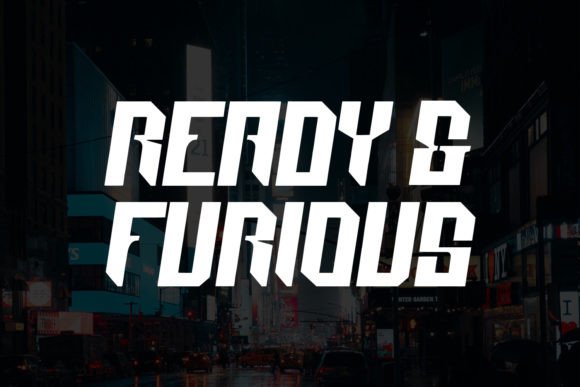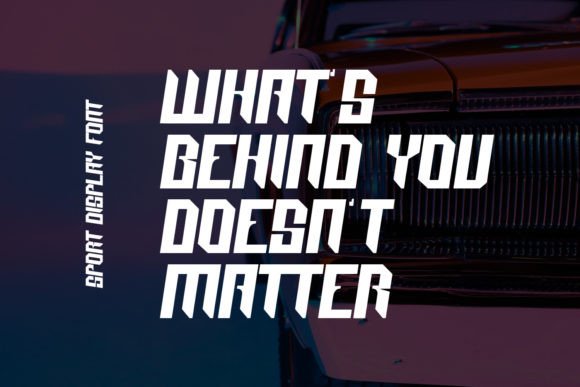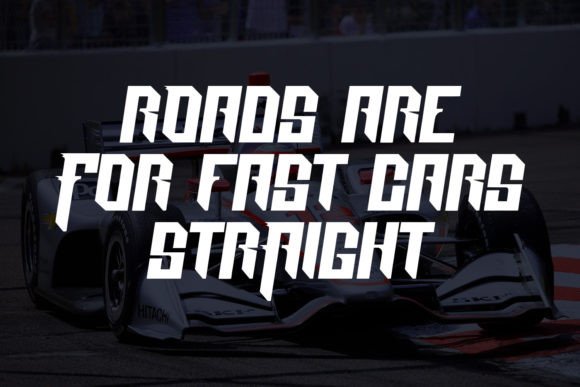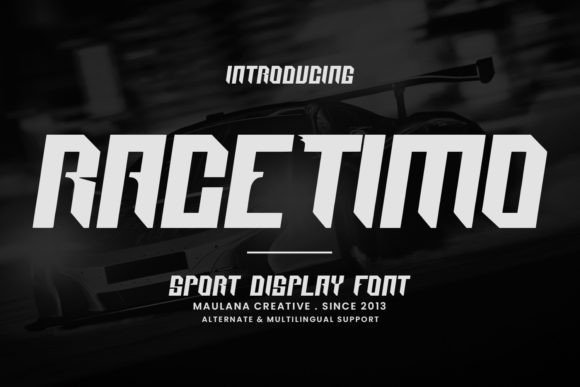
Introduction to Race Timo Font
Race Timo is a modern, sport display font that exudes speed and dynamism.
Its sleek and sharp letterforms are reminiscent of racing tracks, evoking a sense of energy and movement Perfect for sports-related designs, Race Timo adds a bold and competitive edge to logos, posters, and apparel.
Key Features of Race Timo Font
Why Choose Race Timo Font?
Race Timo Font offers exceptional quality and versatility, making it a valuable addition to your design toolkit. Whether you’re creating for personal projects or commercial use, Race Timo Font delivers professional results.